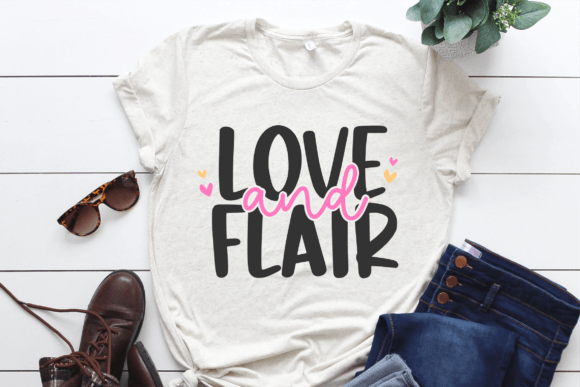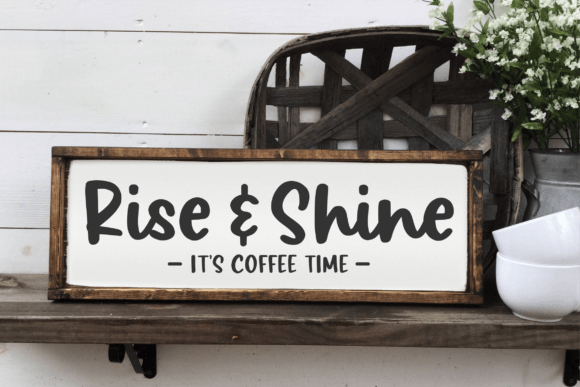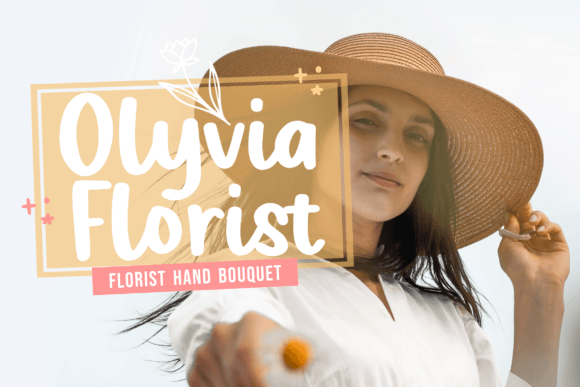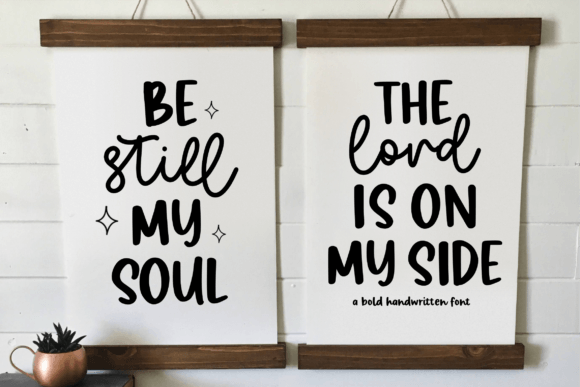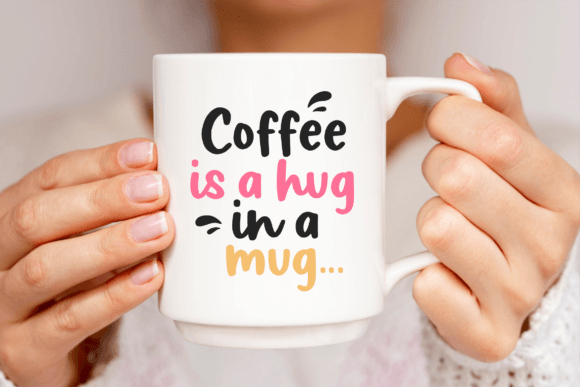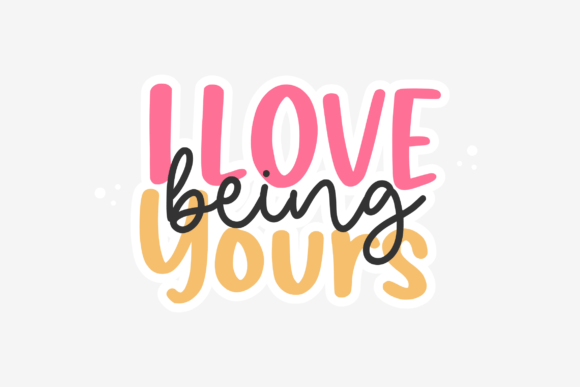
The Freaky Bouncy Font: A Bold and Playful Game-Changer for Designers
I still remember the design project that led me to discover the Freaky Bouncy font. I was working on a branding project for a children’s play center, and I needed a font that was both playful and professional. After hours of scouring font libraries and testing out different options, I stumbled upon Freaky Bouncy. Its bold, expressive lines and conservative bends immediately caught my attention, and I knew I had found the perfect fit.
An Honest Review: What I Love (and What to Watch Out For)
So, what makes Freaky Bouncy so special? Here are a few things I love about this font:
- ✨ **Bold and expressive**: Freaky Bouncy makes a statement with its thick and solid lines, perfect for headlines and titles.
- ✅ **Easy to read**: Despite its boldness, Freaky Bouncy remains surprisingly legible, even at smaller sizes.
- 💡 **Playful yet professional**: This font strikes the perfect balance between fun and sophistication, making it suitable for a wide range of design projects.
Of course, no font is perfect, and Freaky Bouncy has a few quirks to be aware of:
- 🤔 **Limited use in body text**: While Freaky Bouncy is amazing for headlines, it may not be the best choice for longer blocks of body text.
- ⚠️ **May not be suitable for very small sizes**: Freaky Bouncy’s bold lines can become overwhelming at very small sizes, so use it with caution.
The Backstory Behind Freaky Bouncy
While the true origins of Freaky Bouncy are shrouded in mystery, it’s said that the font was designed by a team of creatives who wanted to create a bold and playful typeface that would stand out in a crowded design landscape. Inspired by the world of graffiti and street art, Freaky Bouncy was born – a font that’s equal parts fun, expressive, and professional.
| Font Name | Freaky Bouncy Font |
| Q: What type of projects is Freaky Bouncy best suited for? | A: Freaky Bouncy is perfect for branding, advertising, packaging, and any project that requires a bold and playful font. |
| Q: Can I use Freaky Bouncy for body text? | A: While Freaky Bouncy is amazing for headlines, it’s not recommended for longer blocks of body text. Instead, use it to add emphasis and visual interest. |